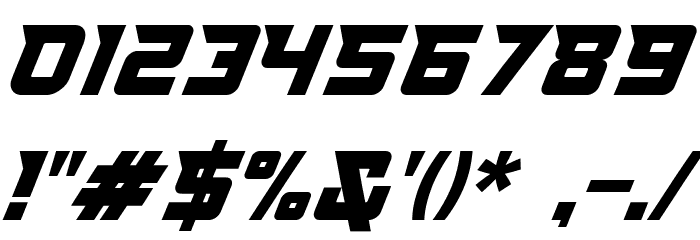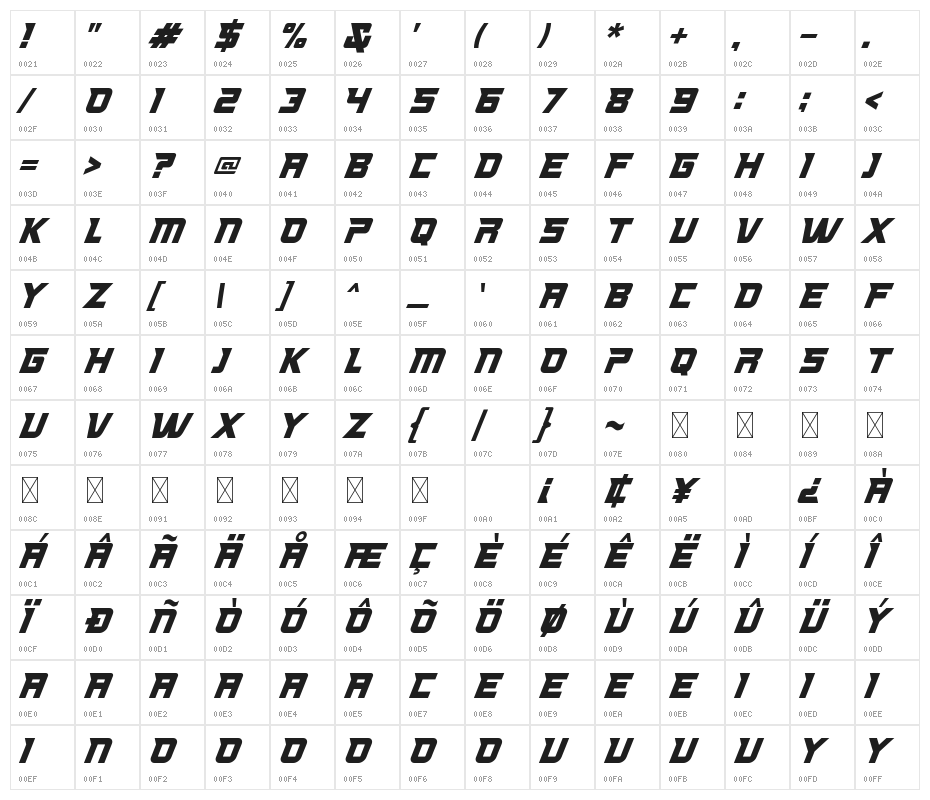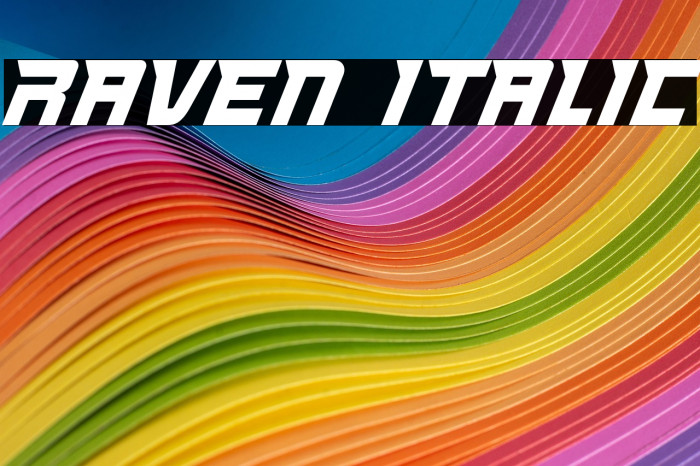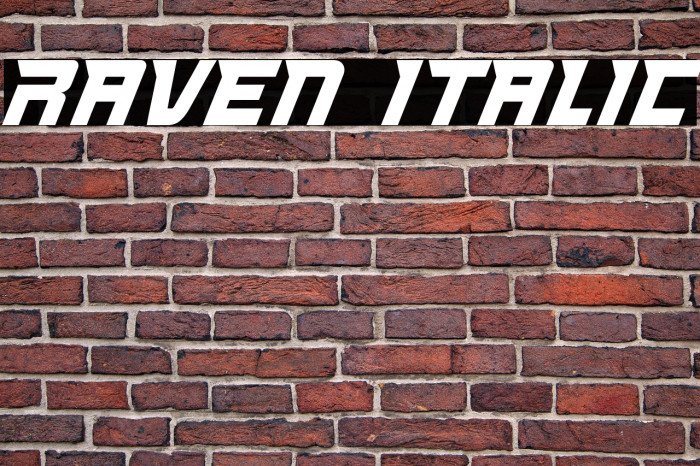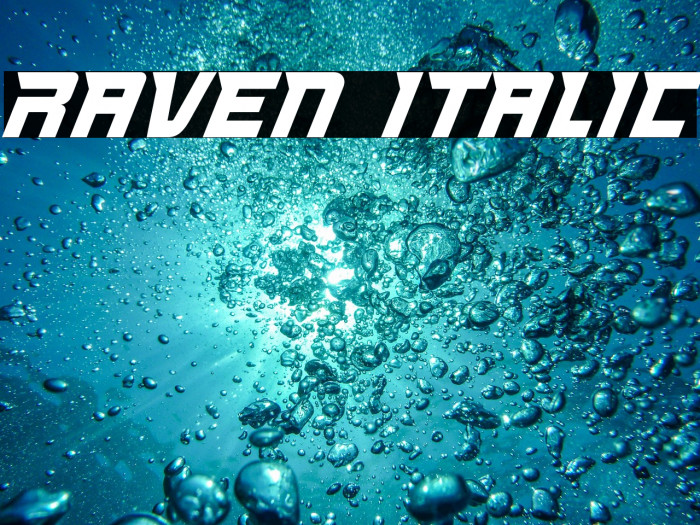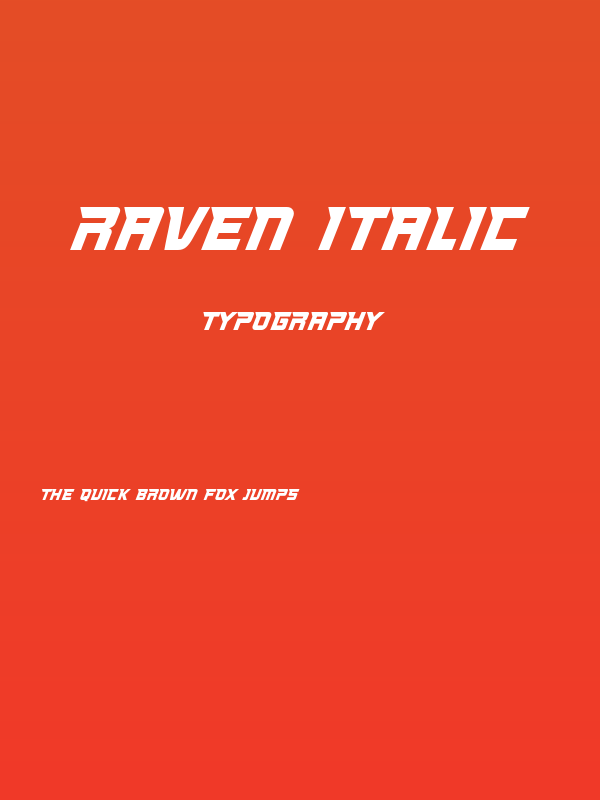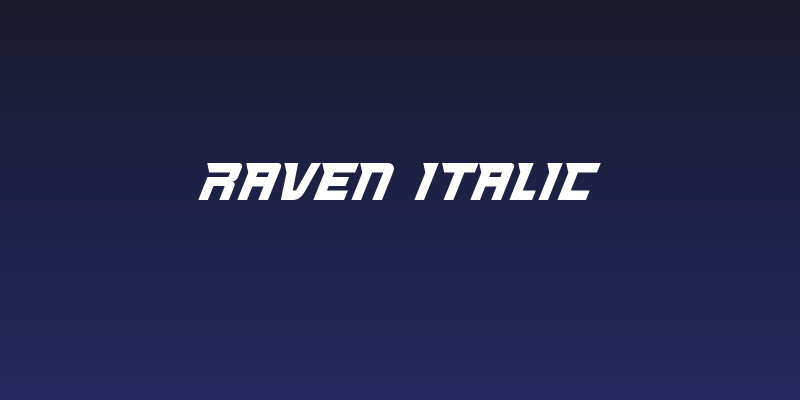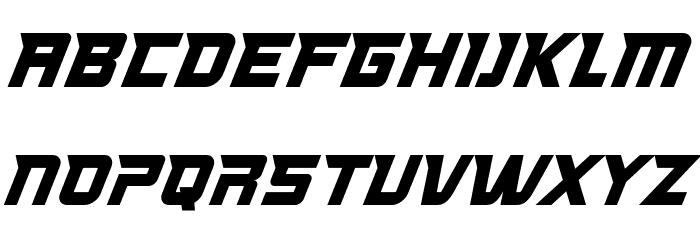
Raven Italic Font
Raven Italic Description
This font features a bold and dynamic style with a strong italic slant, giving it a sense of motion and energy. The characters are angular and geometric, with sharp edges and a futuristic feel. The uppercase and lowercase letters maintain a consistent design, providing a cohesive look across the alphabet. The numerals are equally bold, ensuring readability and impact. Special characters are designed to match the overall aesthetic, making this font suitable for a variety of creative applications.